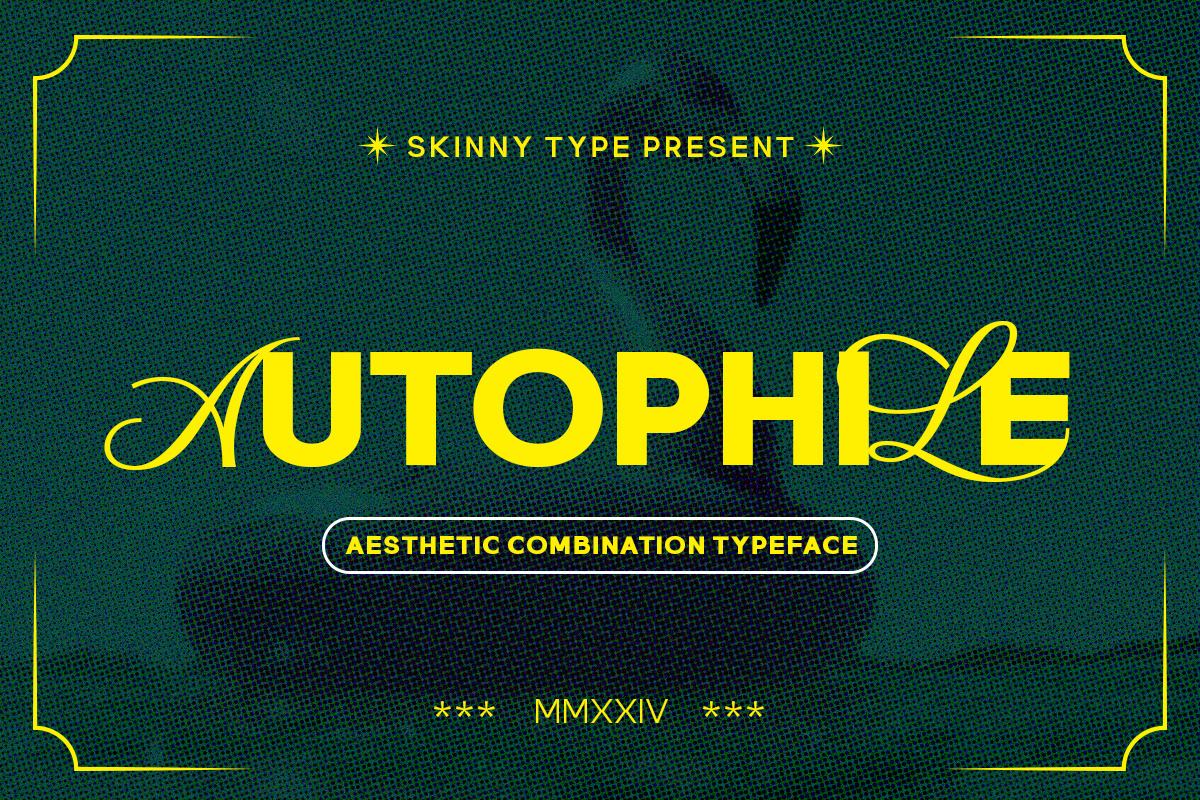
Autophile – Authentic Typeface Free Download is a stylish and modern typeface designed to bring personality and authenticity to your designs. With its clean lines, strong character, and unique structure, Autophile is perfect for branding, logos, websites, posters, packaging, and any project that needs a distinct, professional touch.
The authentic design of Autophile strikes the perfect balance between modern style and traditional craftsmanship, making it ideal for businesses that want their typography to feel both creative and reliable. Whether you’re creating a custom logo or designing a website, Autophile adds a timeless, high-quality feel to your work.
Designers love Autophile for its flexibility and sleek appeal across both print and digital platforms. Ready to give your designs an authentic, polished look? Download Autophile – Authentic Typeface Free Download and bring sophistication to your next project.